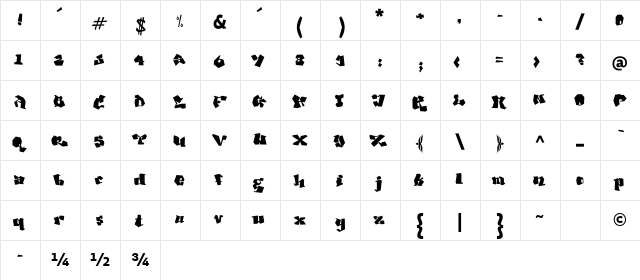
djadli_Tachkili Regular
djadli_Tachkili is a composed and adaptable typeface that performs quietly and consistently across a wide range of design contexts.